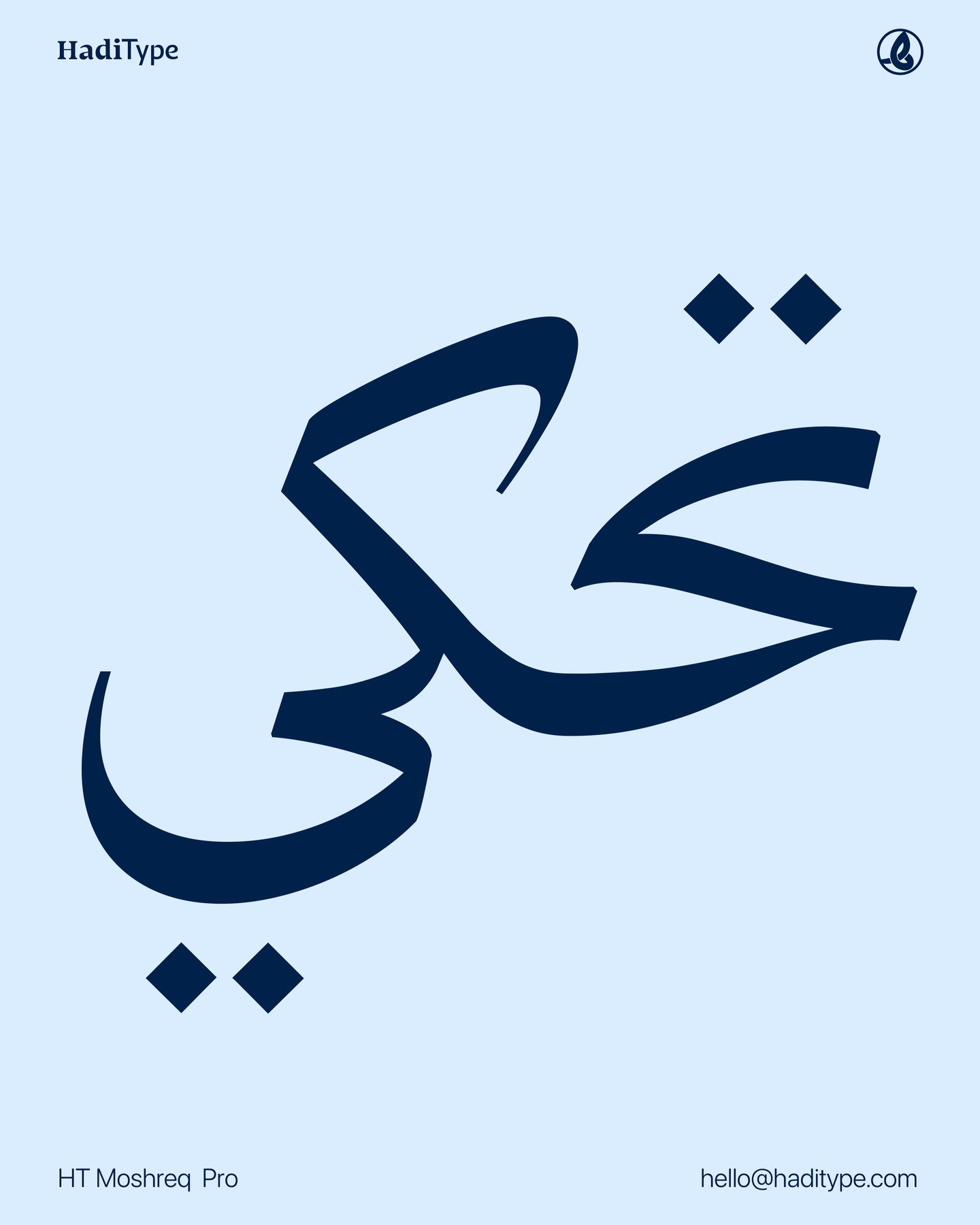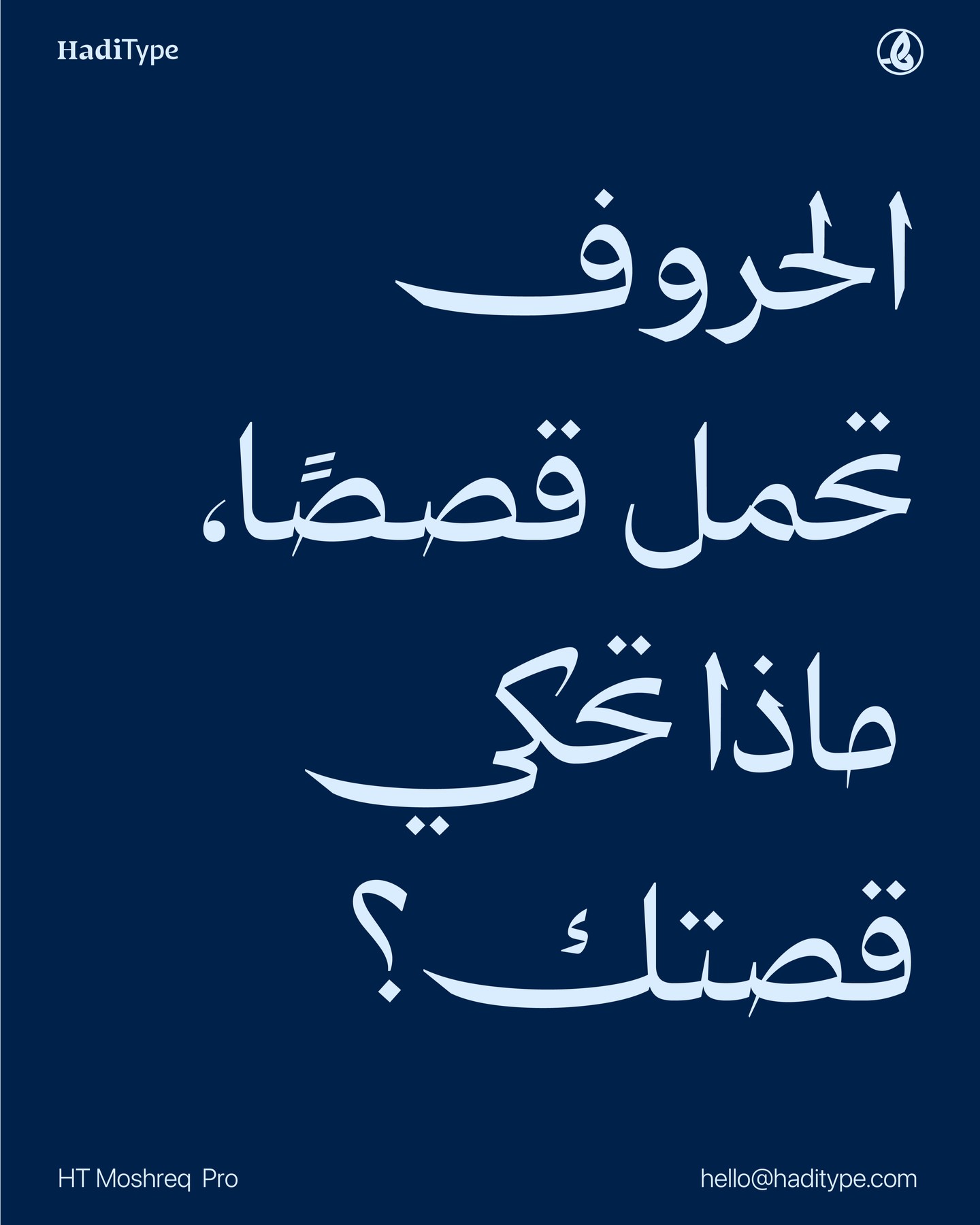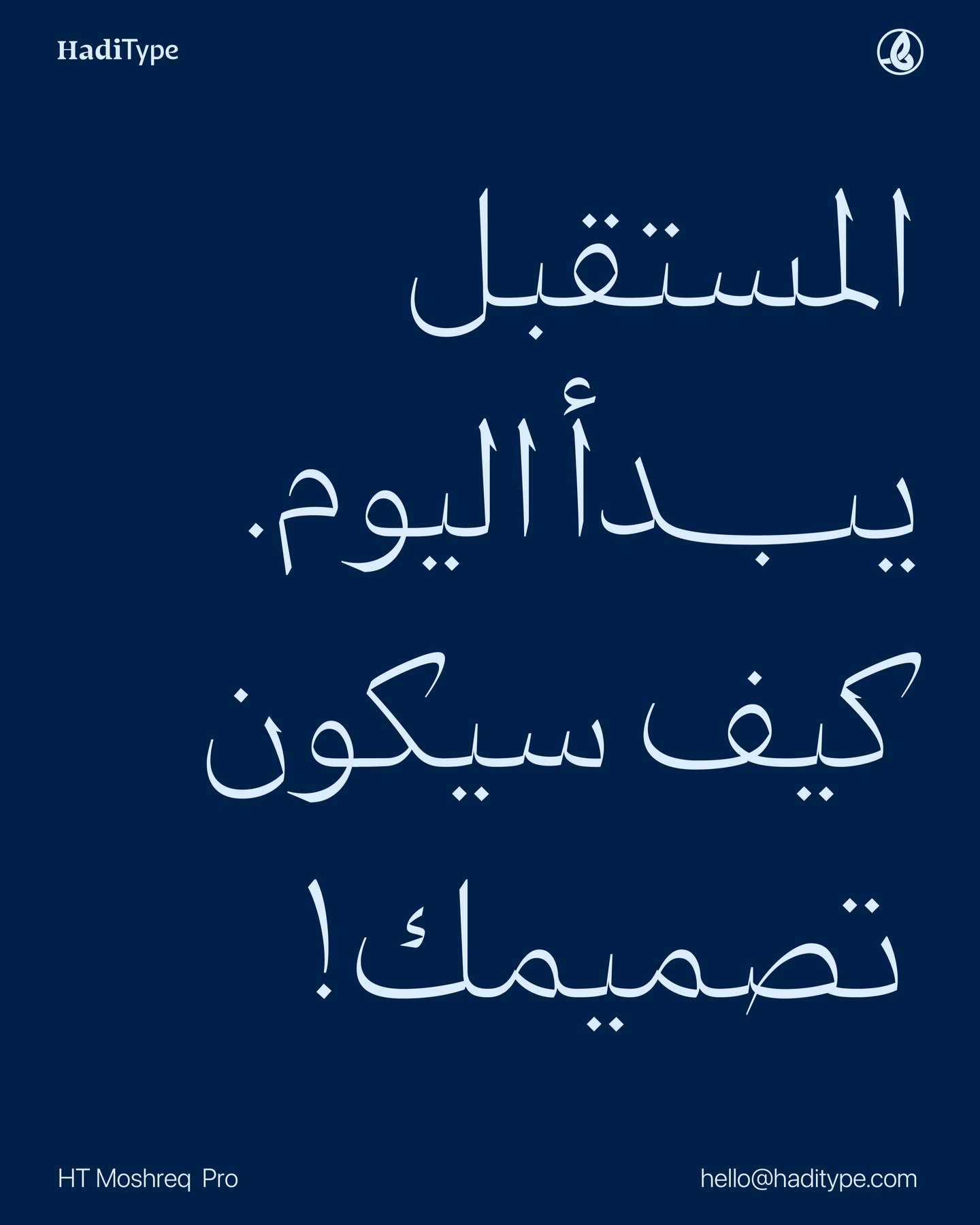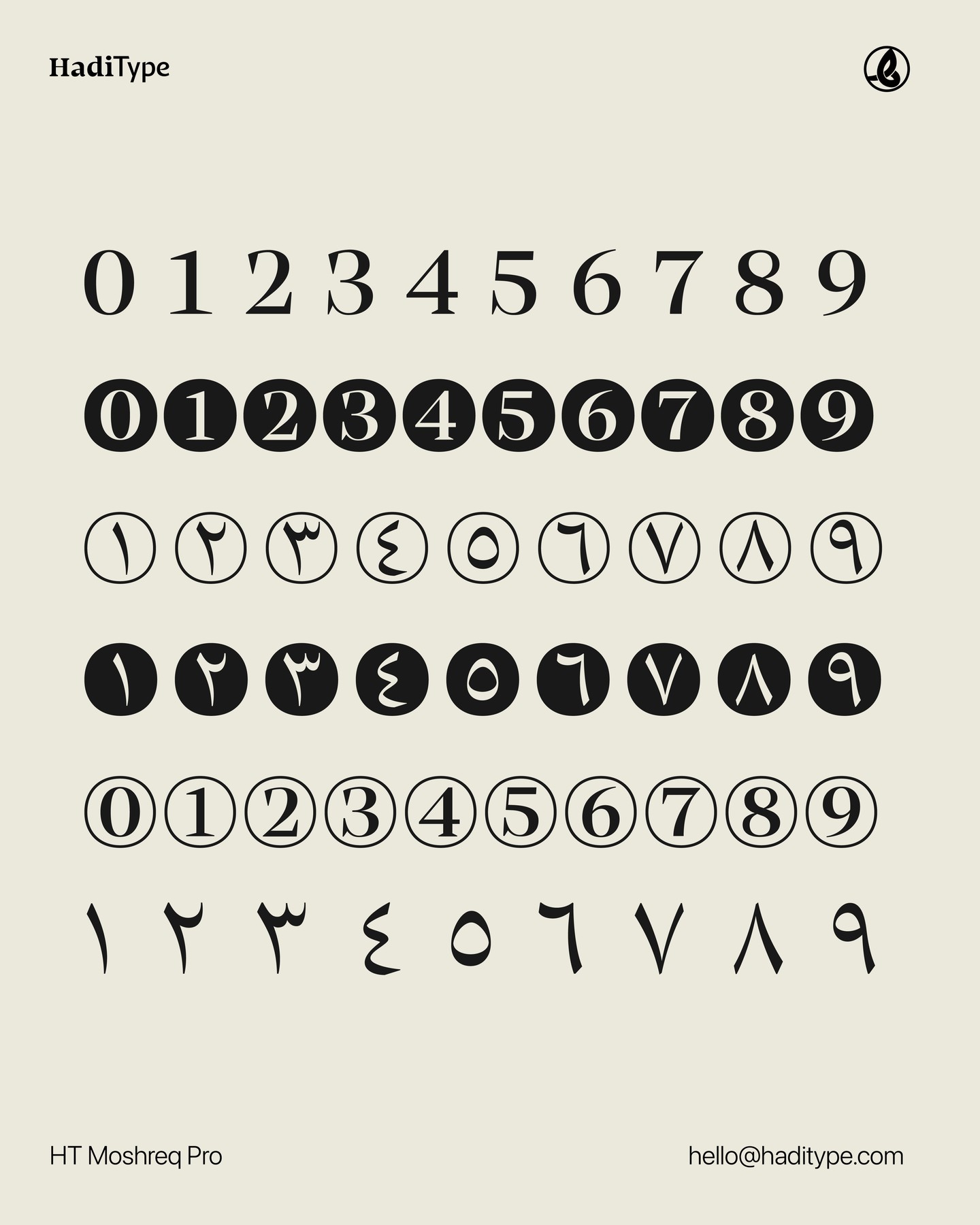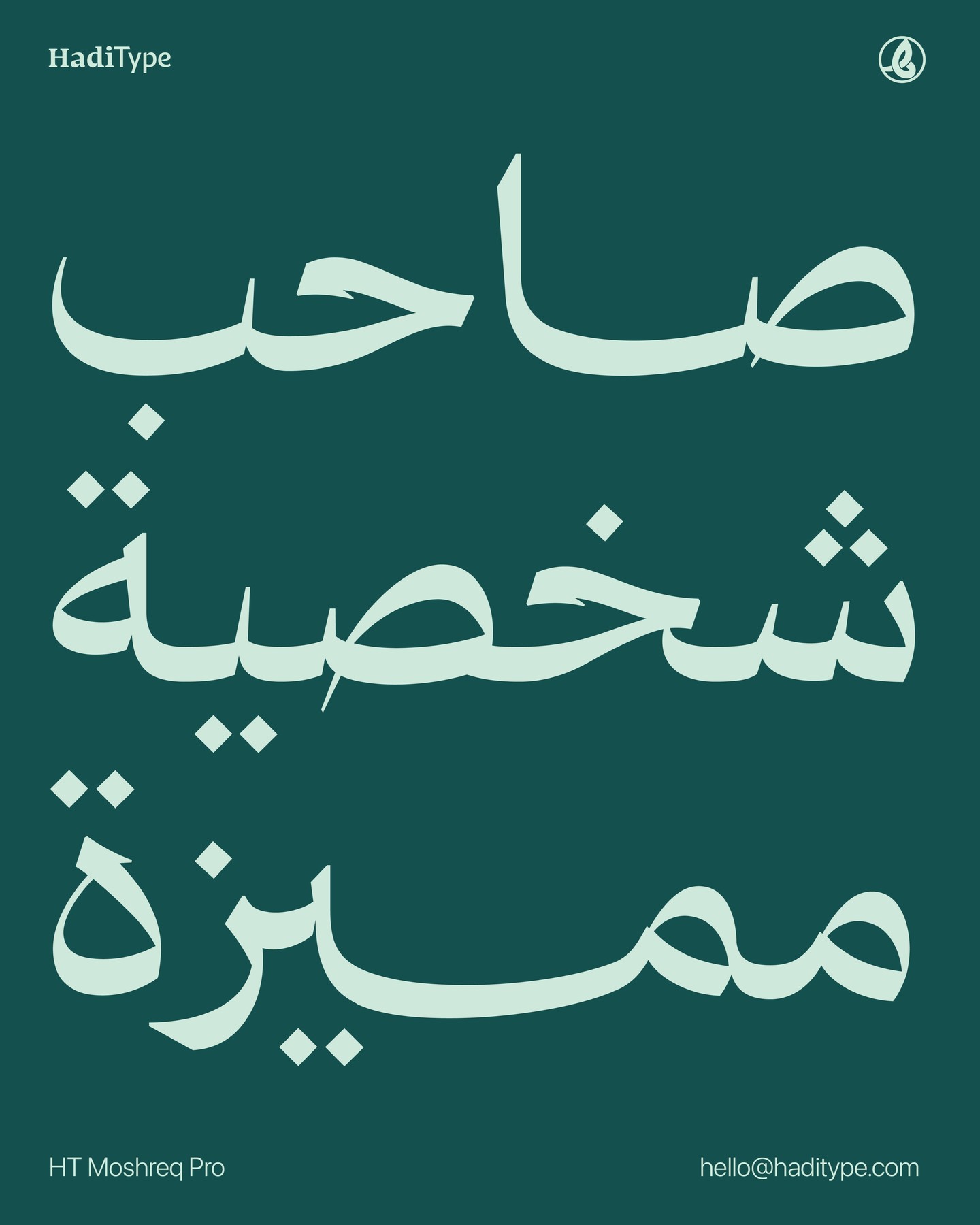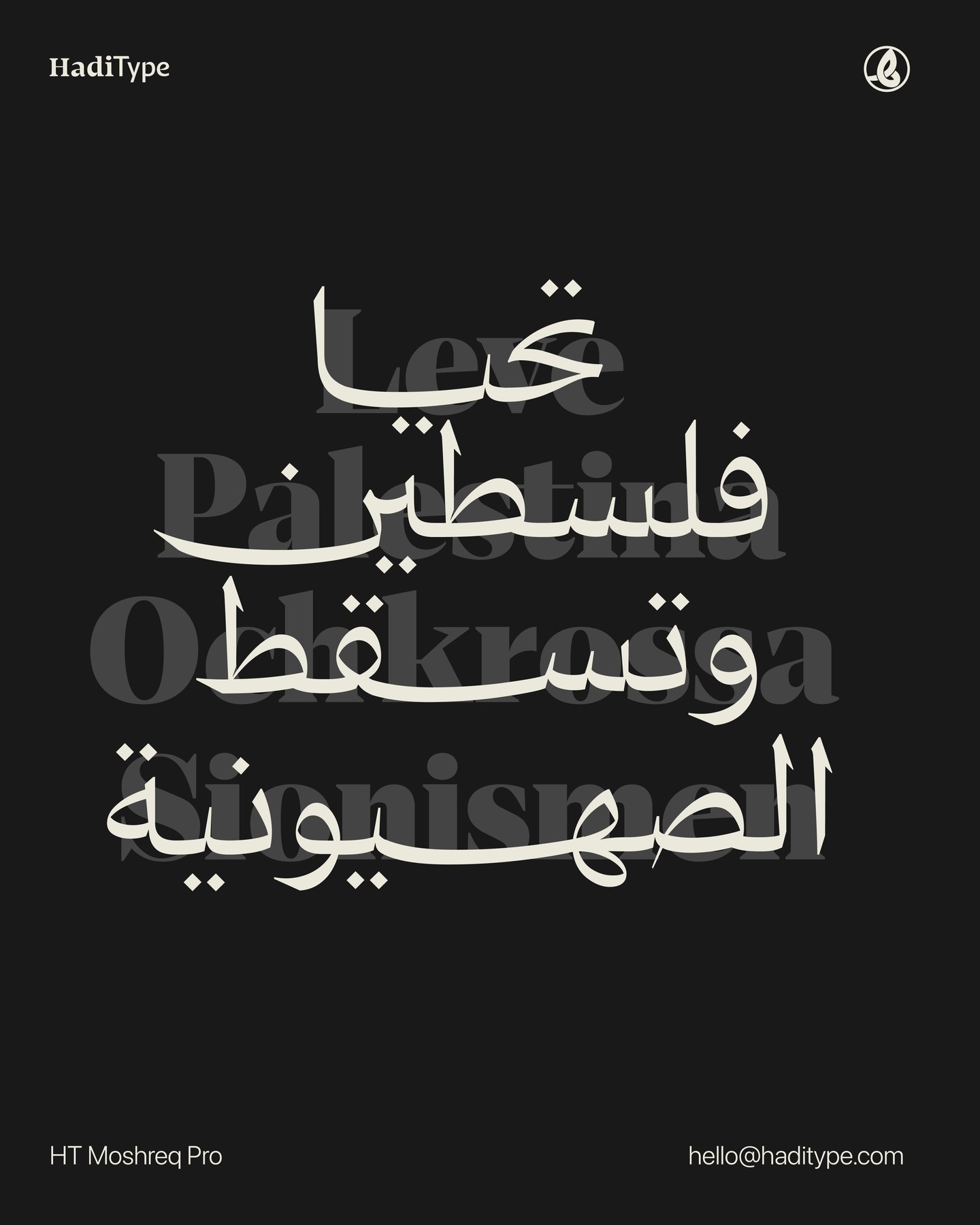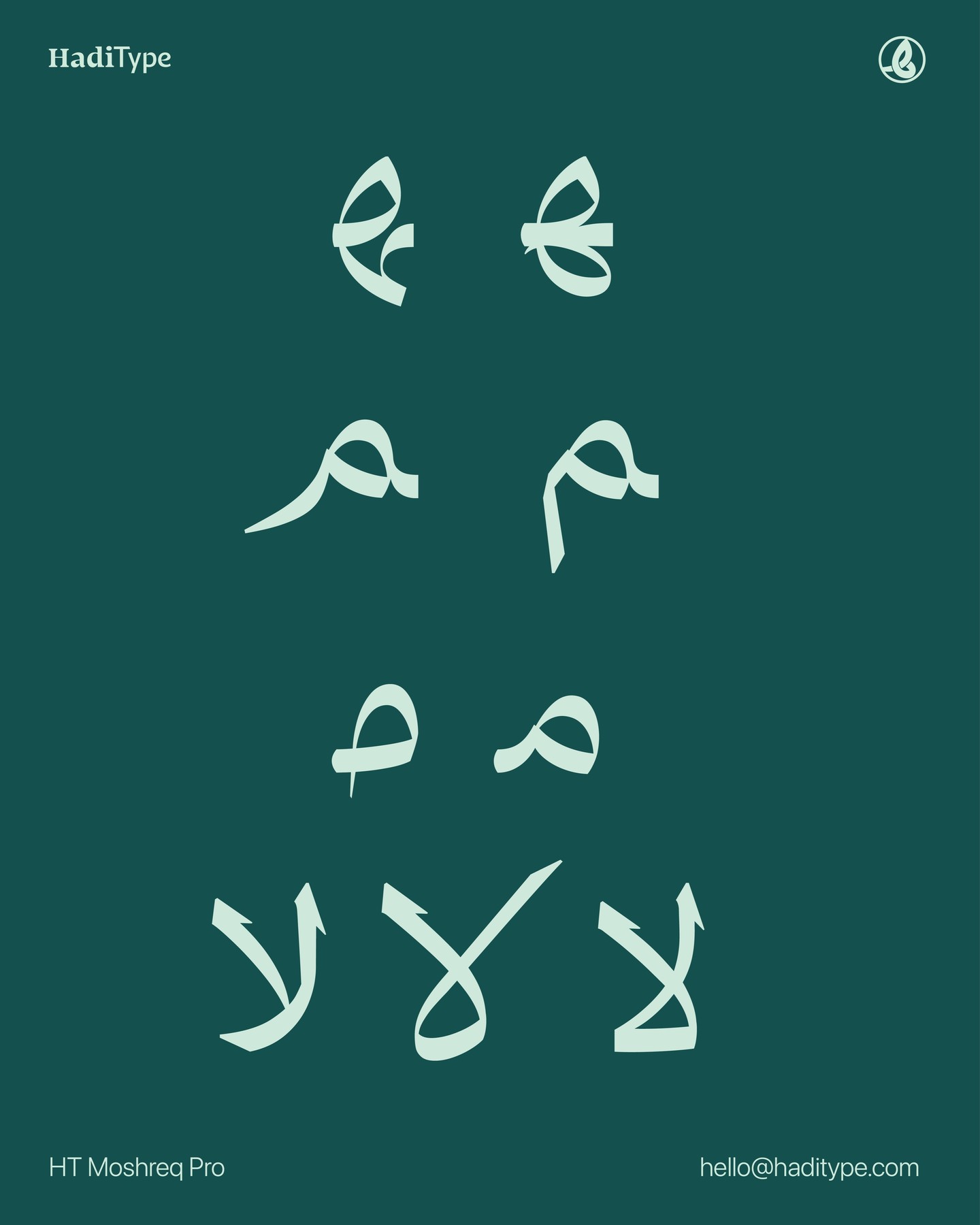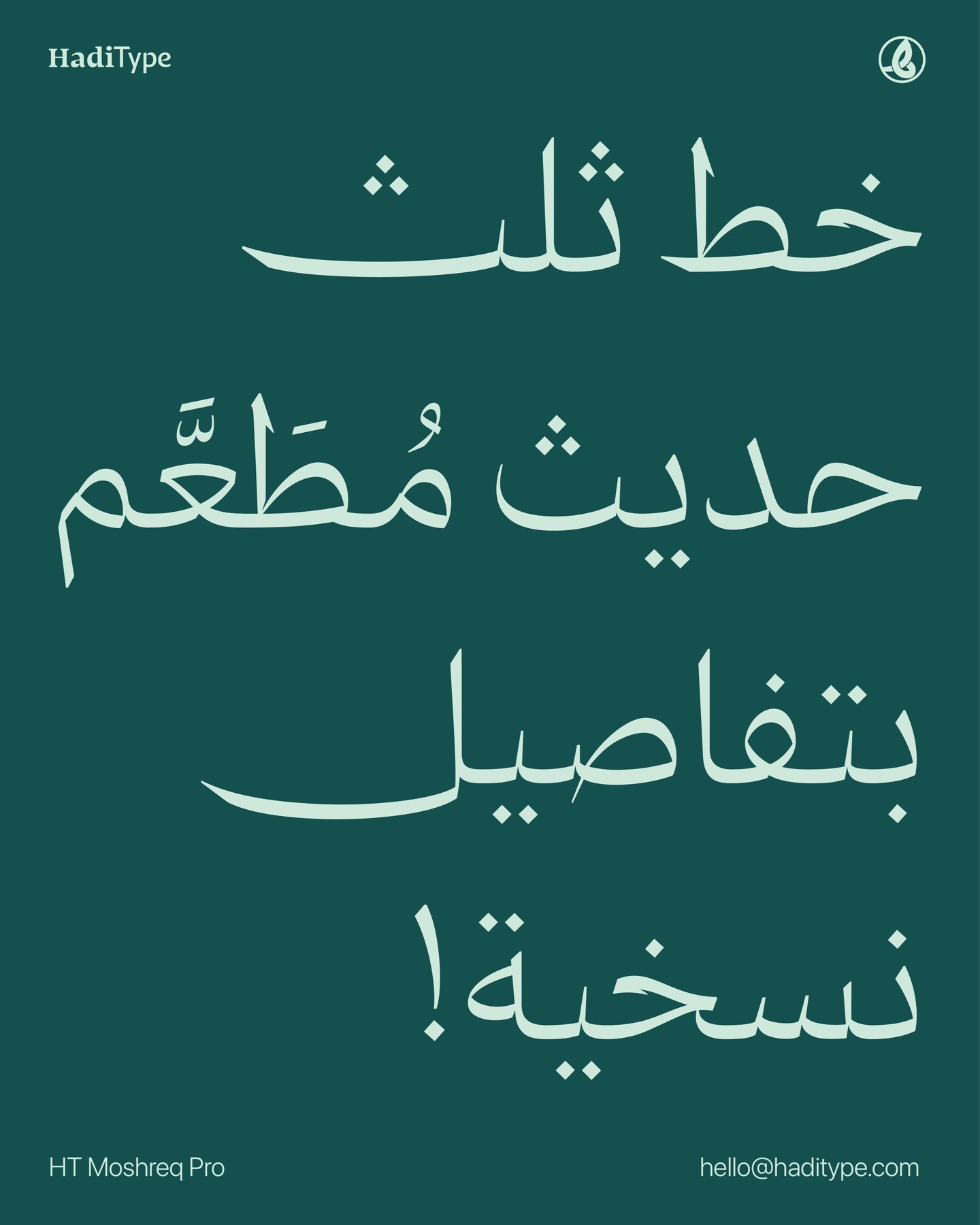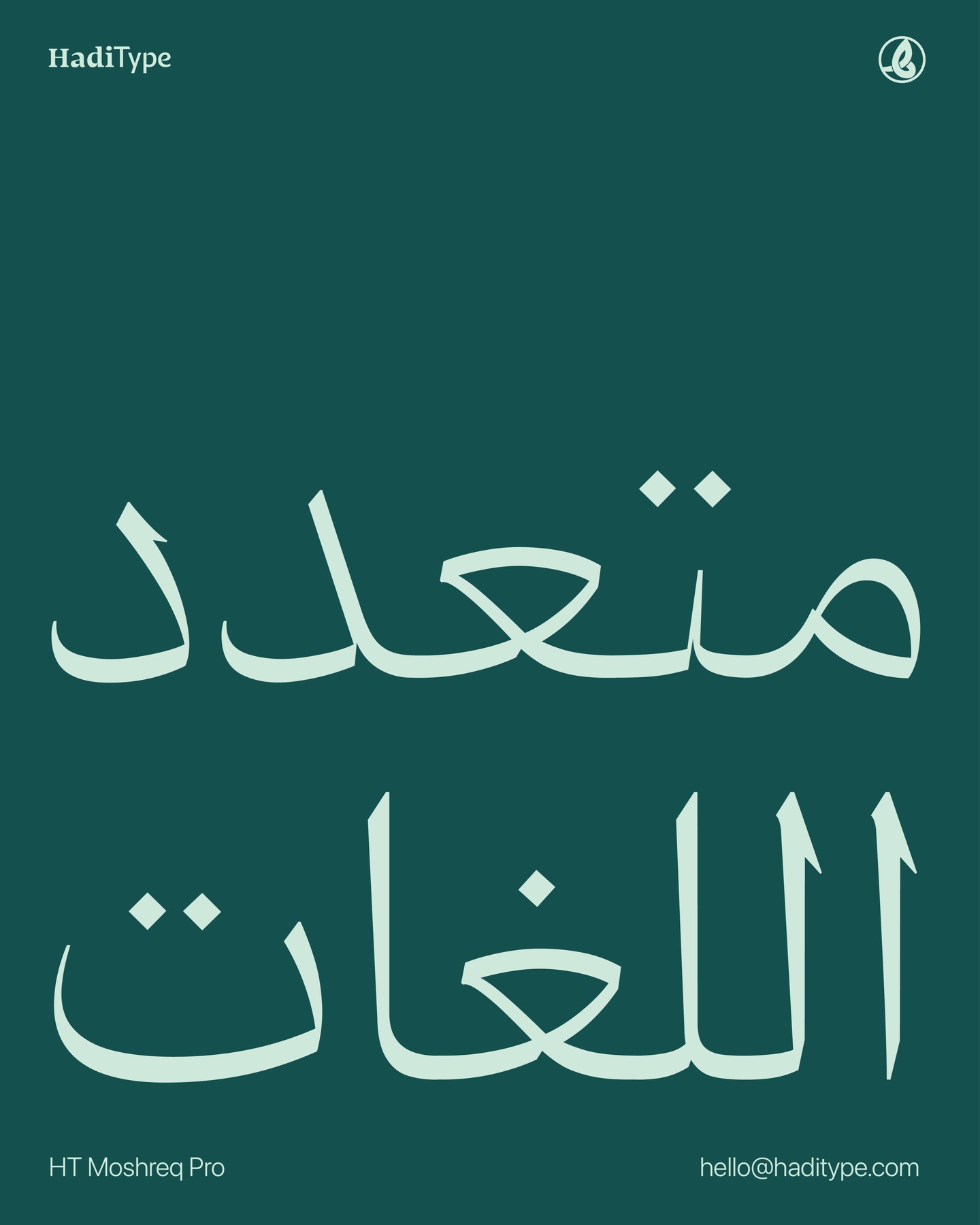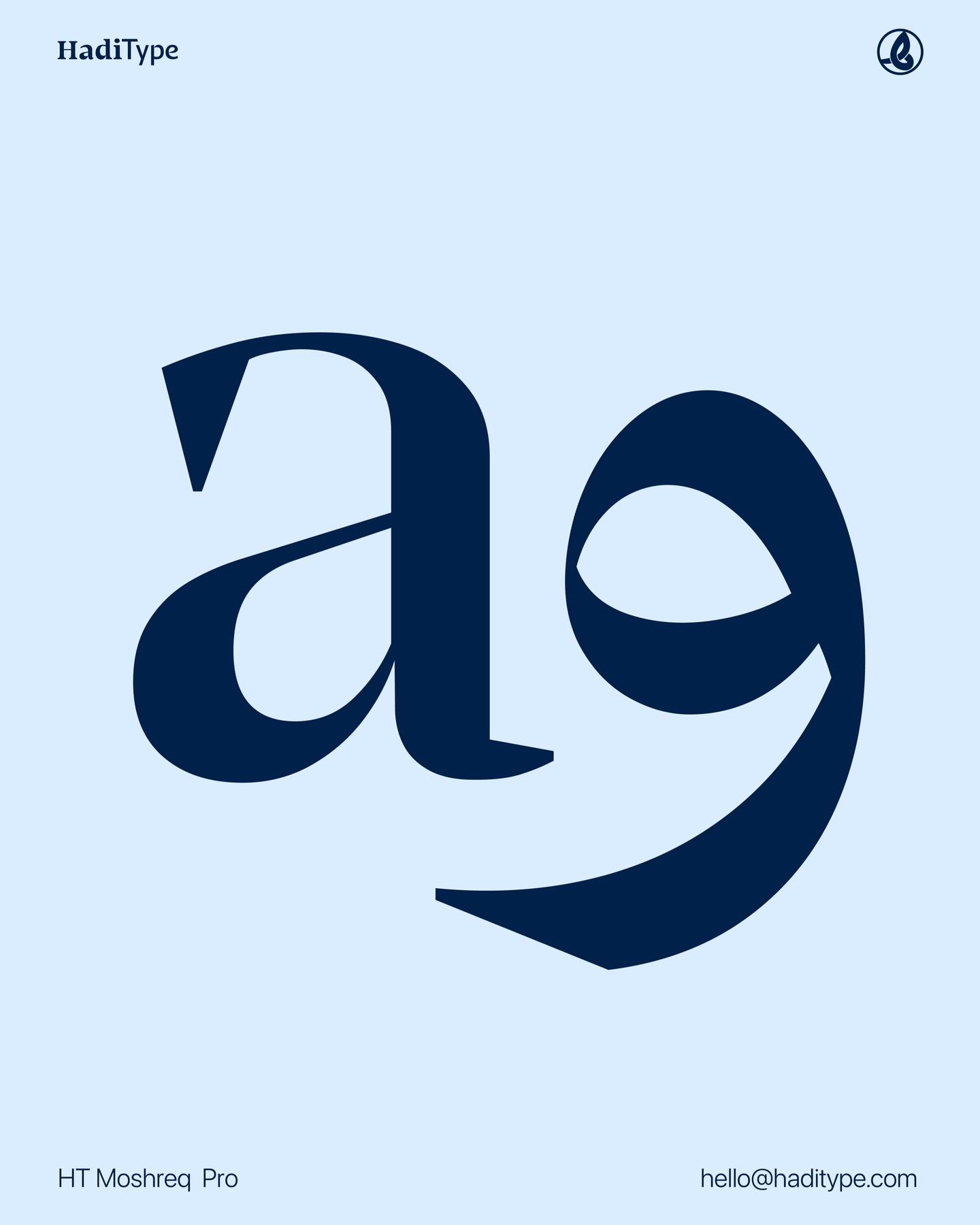
HT Moshreq Pro
جمال الخط العربي مع تقنية أوبن تايب متقدمة
مشرق برو خط عربي لاتيني للعناوين بكشيدة مرنة
خط عرض عربي أنيق متعدد الأوزان والخصائص
خط ثلث حديث مُطَعّم بتفاصيل نسخية
HT Moshreq Pro is an elegant Arabic display typeface designed by Muhammed Hadi in early 2022. Originally released as a six-weight Arabic-only font, it was expanded in 2023 to include Latin script support.
This professional type family includes 9 styles and a wide range of OpenType features , including five levels of calligraphic kashida (tatweel), contextual alternates , swashes , and ligatures that elevate typographic expression.
Ideal for branding, editorials, titles, and posters, HT Moshreq Pro offers a seamless fusion of heritage and modernity.
Supported Languages: Arabic, Persian, Urdu, North African Arabic, Kurdish, and Turkish.
Designer: Muhammed Hadi